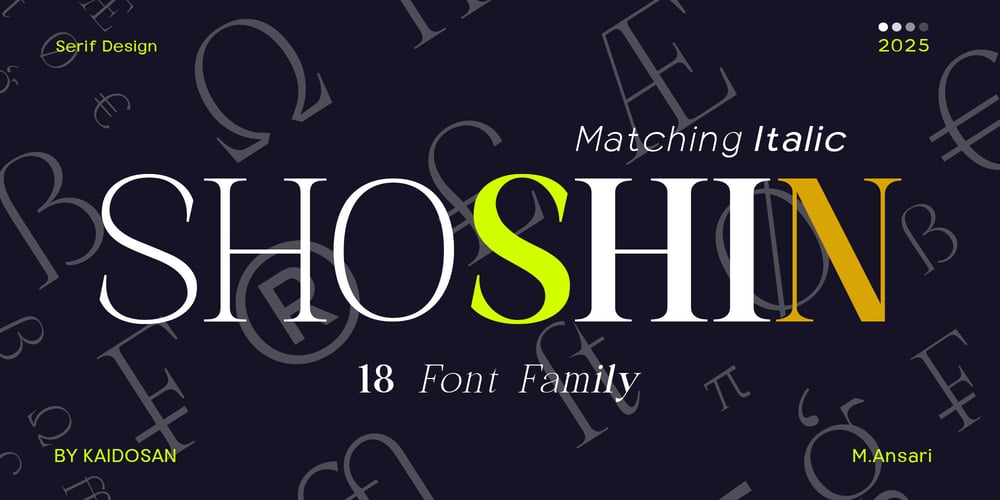
Shoshin
Shoshin font
Shoshin Font Family was designed by Muhammad Ansari and published by Kaidosan. Shoshin contains 18 styles and family package options. “SHOSHIN” is a serif font that blends timeless elegance with a modern touch. With its structured design and balanced proportions, this font is perfect for creating a professional, sophisticated image. Ideal for branding, logos, magazines, and other design projects that require a strong, trustworthy impression. Achieve an elegant and bold look with “SHOSHIN” in your design.